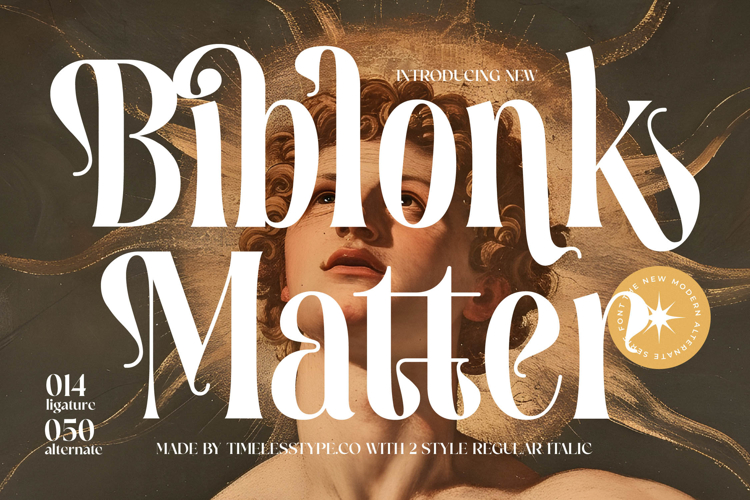
Biblonk Matter - Modern Alternate Serif Font
Instantly captivate your audience with the unparalleled elegance of Biblonk Matter - Modern Alternate Serif Font. This typeface is a masterclass in sophisticated design, blending timeless serif aesthetics with a bold contemporary edge. Its high-contrast strokes and distinctive character forms create an immediate visual impact, ensuring your brand message stands out with refined luxury and unforgettable charm. It's designed to make a truly powerful first impression.
Unlock a world of creative possibilities with the exceptional feature set of Biblonk Matter - Modern Alternate Serif Font. Boasting an array of exquisite ligatures and striking alternate characters, this font allows for truly bespoke typography. Each letter is crafted with meticulous attention, offering designers the tools to infuse projects with unique personality and artistic flair, elevating any textual presentation from ordinary to extraordinary.
Extend your brand's reach effortlessly across the globe. With its extensive multilingual support, Biblonk Matter - Modern Alternate Serif Font adapts seamlessly across global markets, making it incredibly versatile for international projects. This comprehensive language coverage ensures your message maintains its elegant impact and professional integrity worldwide, a crucial advantage for a consistent global brand presence.